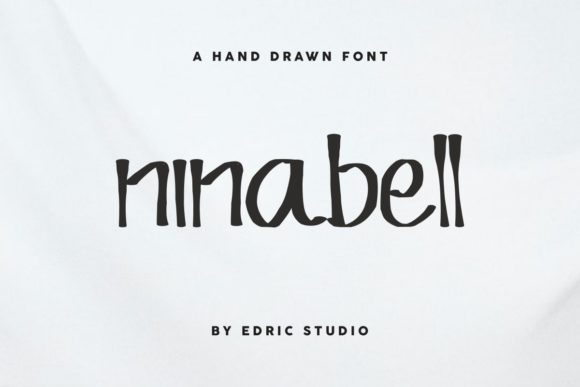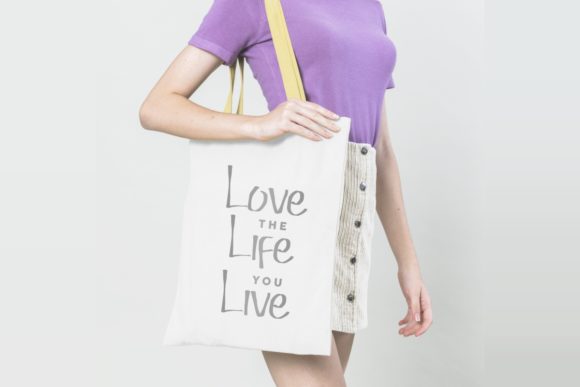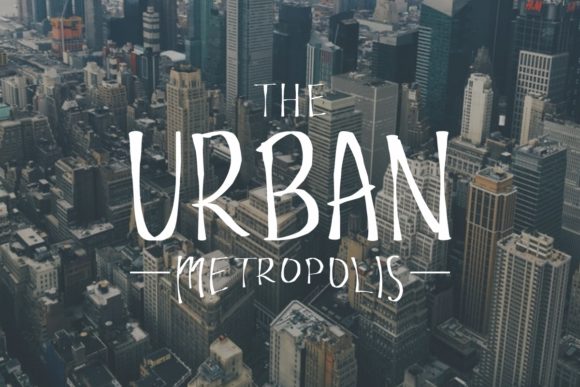
Introduction to Ninabell Font
Ninabell is a simple and natural handwritten font.
Friendly and casual, this font will be the perfect choice for each of your informal designs Let your imagination run free.
Key Features of Ninabell Font
Why Choose Ninabell Font?
Ninabell Font offers exceptional quality and versatility, making it a valuable addition to your design toolkit. Whether you’re creating for personal projects or commercial use, Ninabell Font delivers professional results.